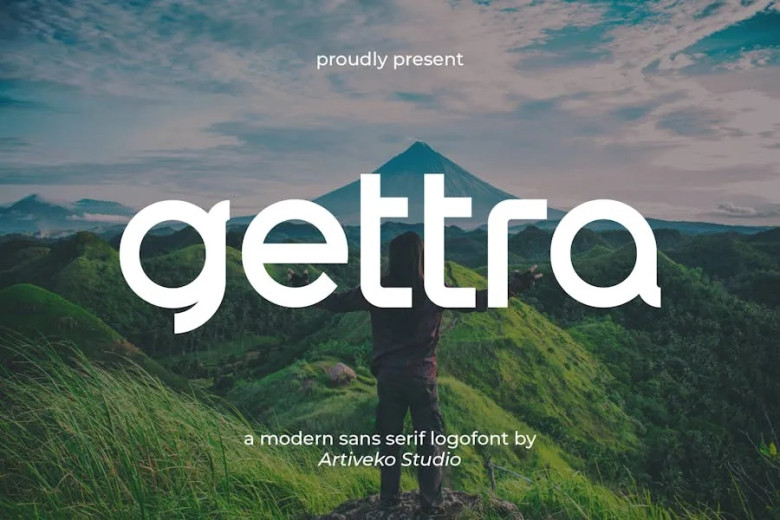
Gettra Font
As we have seen, Gettra font is ideal for posters, social media updates with the company’s brand, personal assignments, and many other applications. The free version even offers all the uppercase letters and lowercase letters alongside others, special characters.
Gettra Sans Serif Font